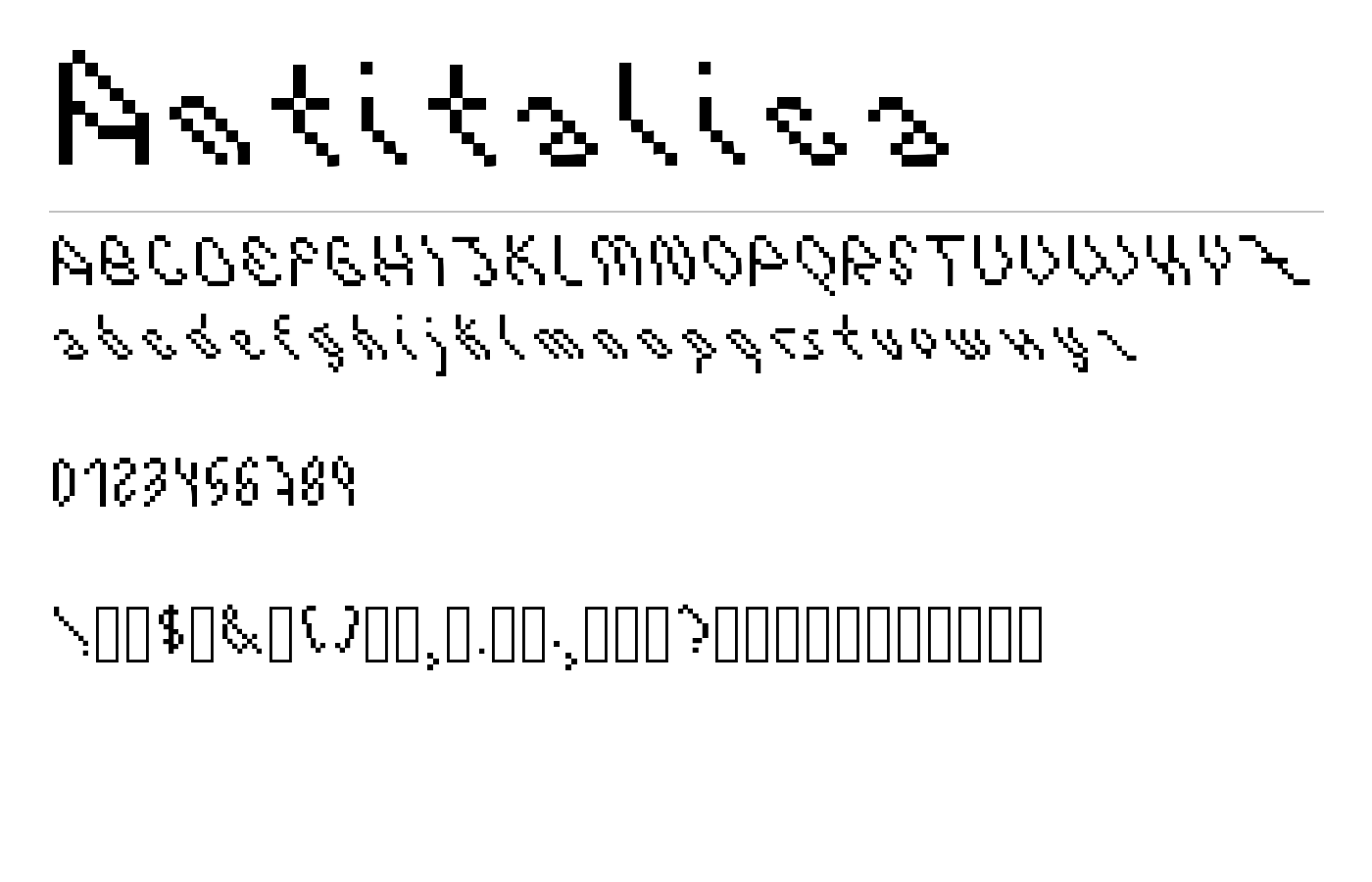
Antitalica is a pixelated, monospaced sans serif font with a quirky, digital aesthetic that mimics retro computer or video game text. Its irregular, blocky letterforms have a low x-height and a playful, futuristic feel, making it perfect for tech-themed designs, pixel art, and projects seeking a nostalgic yet modern vibe. This font works well for headlines, logos, and creative digital branding where a unique, eye-catching style is desired.
Antitalica Font
About Antitalica Font